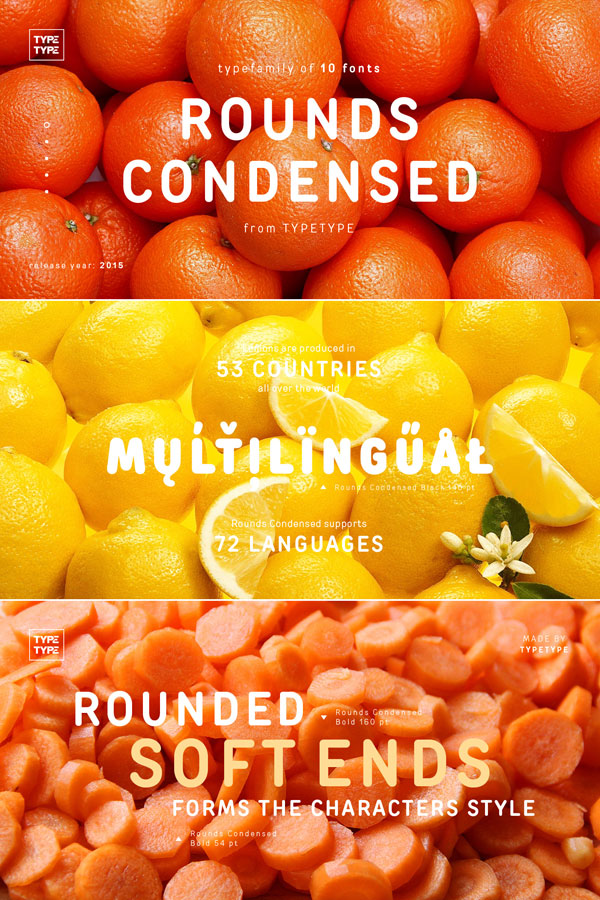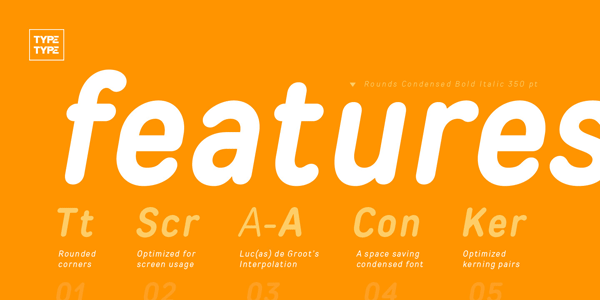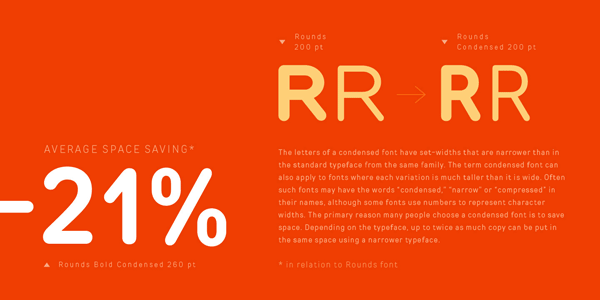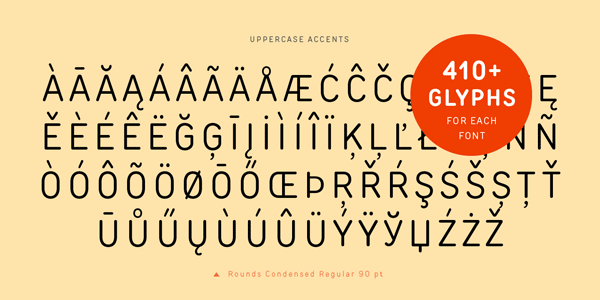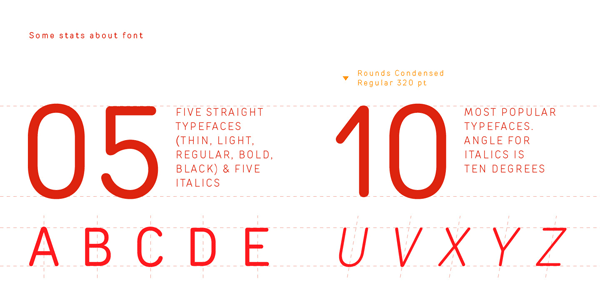
TT Rounds Condensed, a rounded space saving type family from foundry TypeType.
Rounds Condensed is a new release from Russian font foundry TypeType. It’s the condensed version of the popular Rounds typeface. The family consists of 10 fonts including 5 weights (Thin, Light, Regular, Bold, Black) plus matching Italic versions. This gentle typeface with rounded edges is intended for the use in short text sections, titles, quotes, subheadings or paragraphs. TT Rounds Condensed works great for a variety of applications such a websites, signage, logos, advertising, etc. With the support of 72 languages, TT Rounds Condensed is truly a very multilingual font family. Due to its condensed design, this typeface is very space saving and therefore ideal for text areas with limited space. Each font is equipped with more than 410 glyphs. For additional information about this family, please follow the link below.